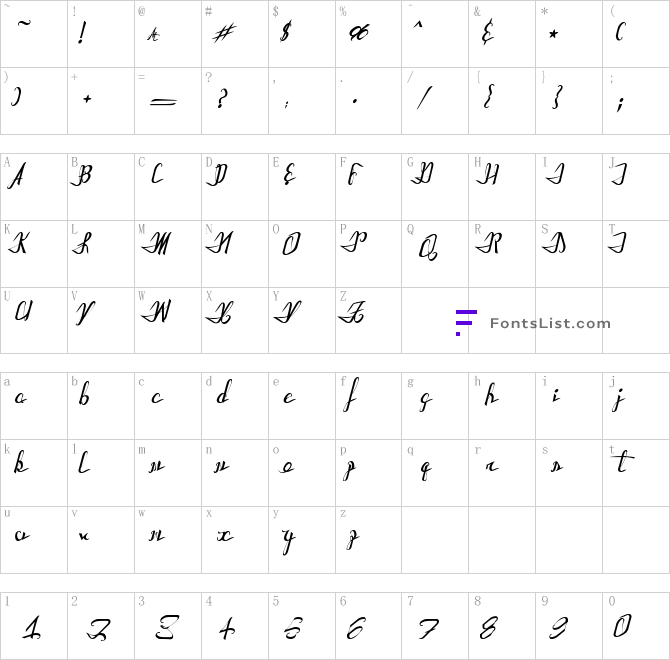
- Font Name:AstralProjectionsItalic
AstralProjectionsItalic.ttf is a very beautiful artistic font, AstralProjectionsItalic.ttf is widely used in the design and printing of various books and pictures,AstralProjectionsItalic.ttf has a strong visual impact,AstralProjectionsItalic.ttf is a commonly used font in newspapers, magazines and books, and is used in posters, e-commerce Poster design, store design, logo design, font design and other fields.AstralProjectionsItalic.